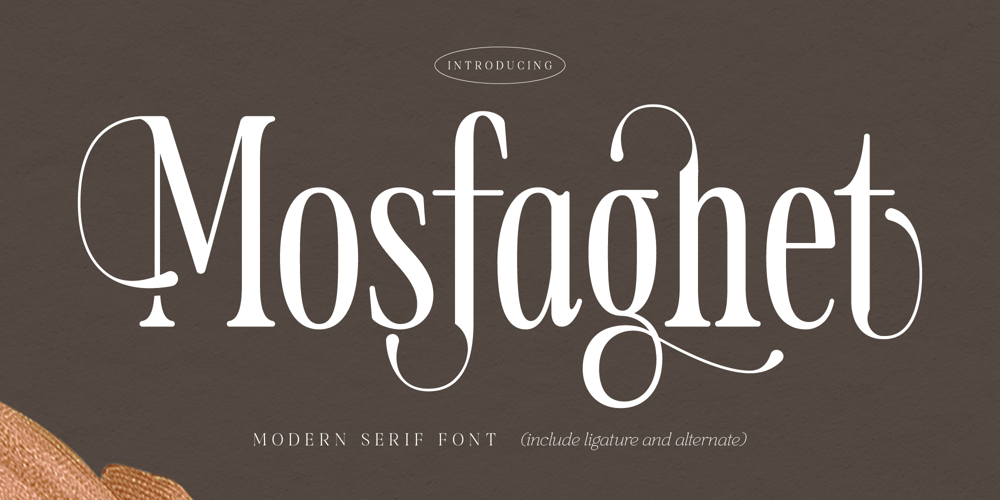
Mosfaghet Font Family was designed by Heru Utama Putra and published by Letterena Studios. Mosfaghet contains 2 styles and family package options. Mosfaghet is a modern and classic serif typeface that has its own unique style and modern look. This typeface is perfect for an elegant & luxurious logo, book or movie title design, fashion brand, magazine, clothes, lettering, quotes, and so much more.